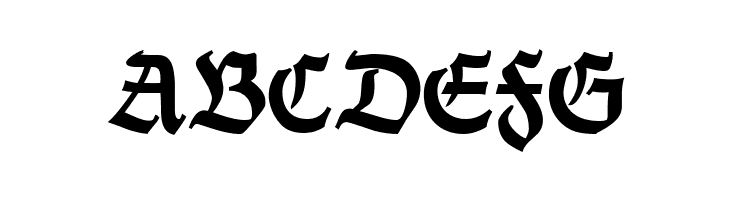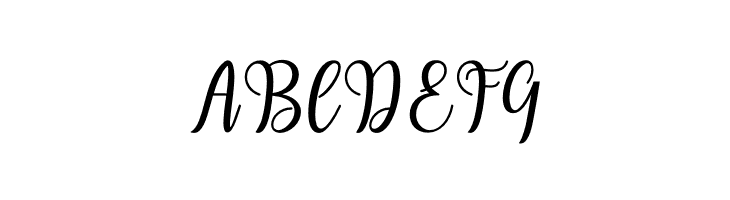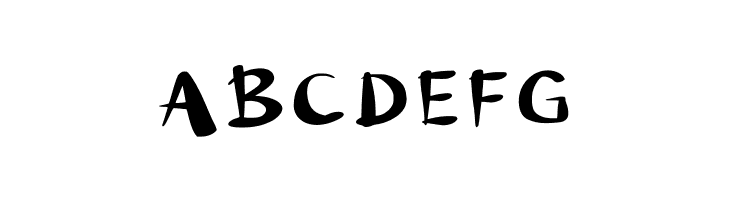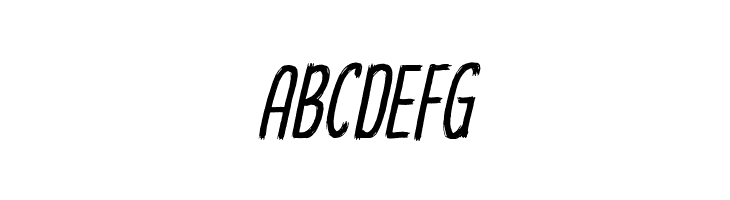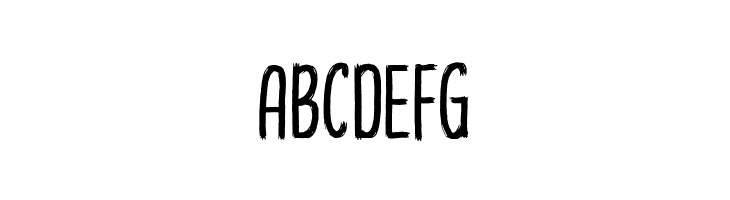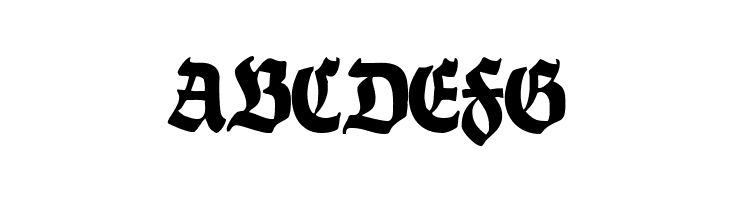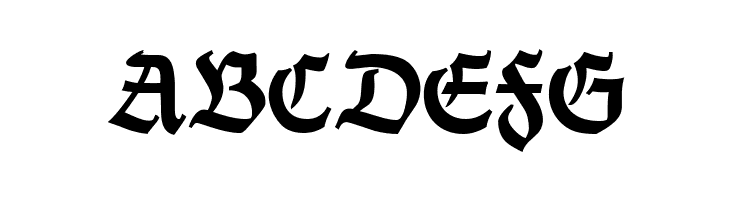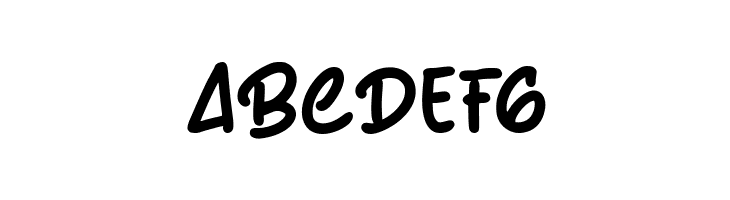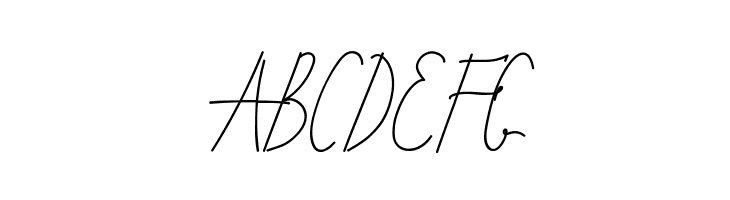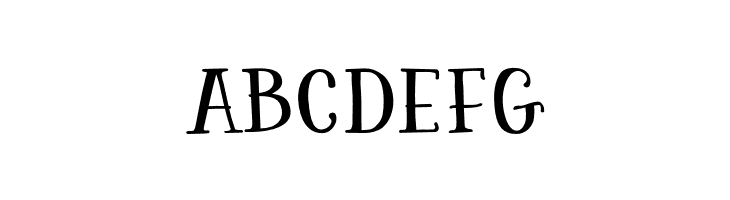
A playful, informal handwritten font with irregular, marker-like strokes.
A modern, geometric font with a futuristic and dynamic style.
An elegant and ornate script font with flowing, decorative letterforms.
A playful, casual handwritten font with smooth, rounded edges.
A bold, angular Gothic-inspired font with sharp edges and dramatic strokes.
A playful, handwritten-style font with bold, rounded characters and medium contrast.
A bold iconographic font with archaeology-themed symbols.
A playful, hand-drawn font with quirky, uneven strokes.
A playful, handwritten-style font with smooth curves and a casual vibe.
A playful, handwritten-style font with a casual and lively appearance.
A bold, italic font with a striped, dynamic design.
A bold, gothic-style blackletter font with intricate details.
A bold, flowing script font with dynamic strokes and smooth curves.
A playful, artistic font with dynamic strokes and a handwritten feel.
A dynamic, brush-style font with a hand-painted appearance.
A bold, brush-style font with a hand-drawn, artistic flair.
A bold, blackletter-inspired font with intricate, angular letterforms.
A bold, Gothic-inspired font with intricate and angular letterforms.
A bold, italicized handwritten font with a dynamic and friendly style.
A decorative swash font with elegant curves.
A playful, bold handwritten font with smooth curves and rounded edges.
A modern sans-serif font with clean lines and uniform stroke width.
A delicate, elegant handwritten font with thin, flowing lines and a graceful slant.
A modern, elegant script font with flowing, interconnected characters.
A playful, hand-drawn font with a whimsical and informal style.
A playful, bold, hand-drawn font with rounded, irregular characters.
A cursive, handwritten font with elegant loops and expressive flourishes.
A playful, hand-drawn script font with flowing, connected strokes.
A dynamic brush script font with expressive, fluid strokes and a hand-drawn appearance.
An elegant italic font with flowing letterforms and moderate contrast.
A classic serif font with elegant curves and balanced proportions.
A classic serif font with elegant curves and balanced readability.
A delicate, cursive script font with a handwritten style.